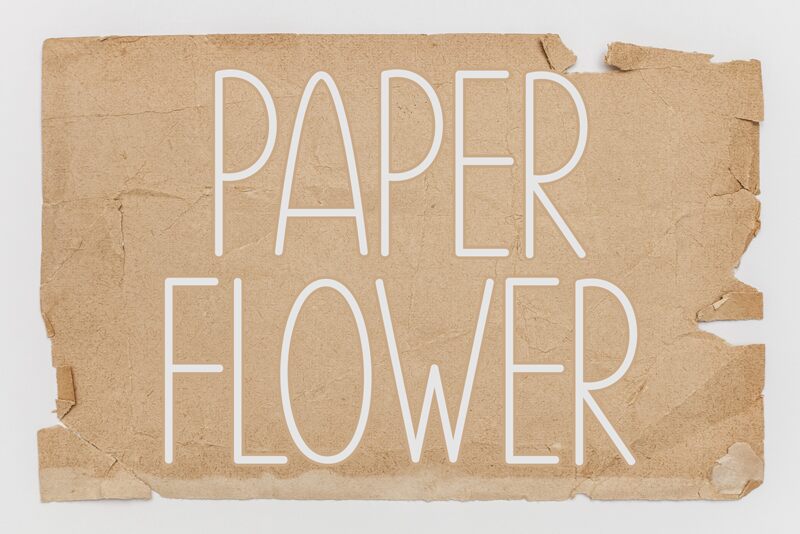
Paper Flower
Paper Flower font designed by Etik Fatimah is a free handwritten font with a light weight and condensed width. The typeface combines an artistic minimalistic design with modern geometric influences to create a sleek appearance. Its contemporary appeal makes it both versatile and useful for many design projects.
Paper Flower is made for inspiring modern headings, website titles, magazine covers, typography posters, advertisements, product packaging designs, brand names, logos, invitation cards, or greeting cards. However you plan to use Paper Flower in your project it will surely stand out and catch everyone’s attention!